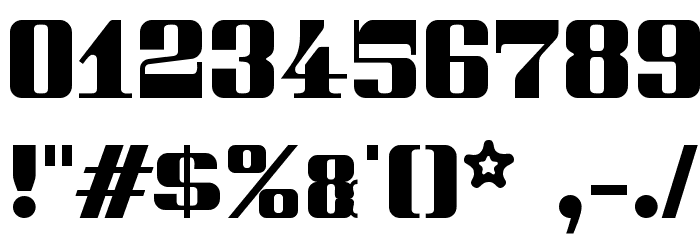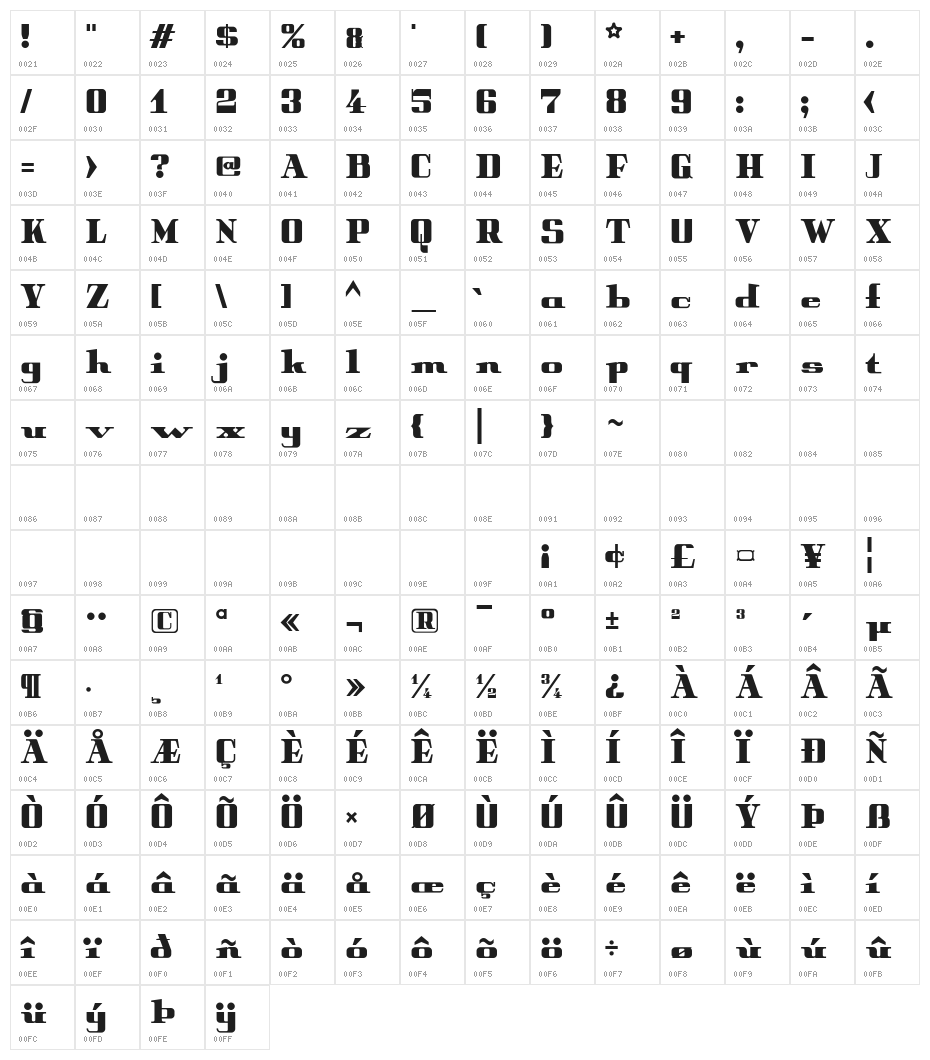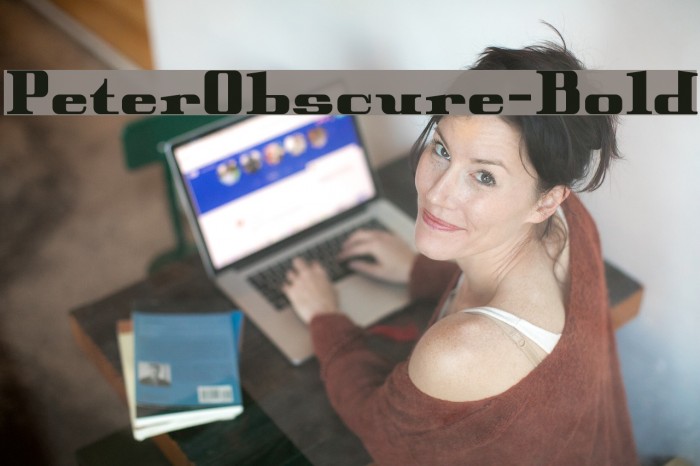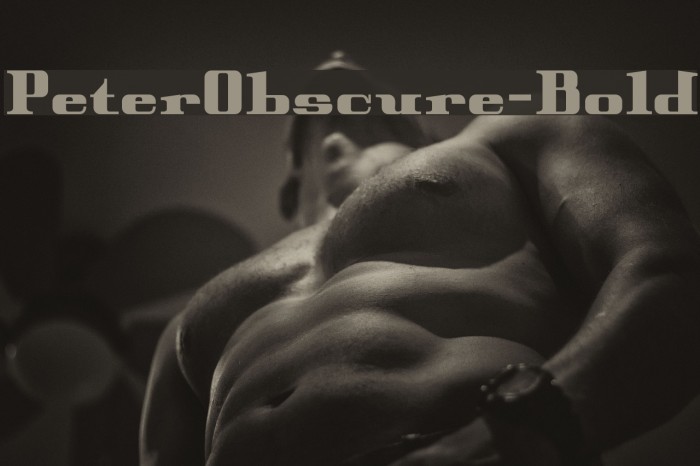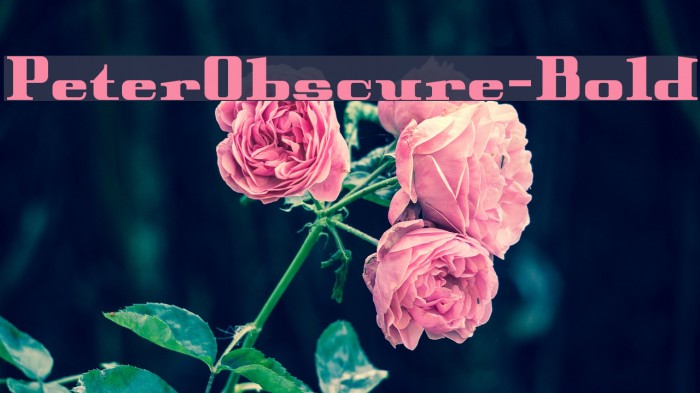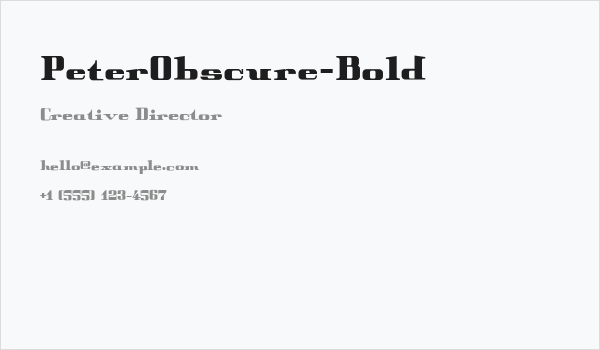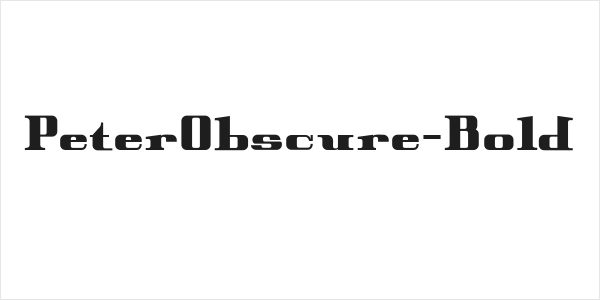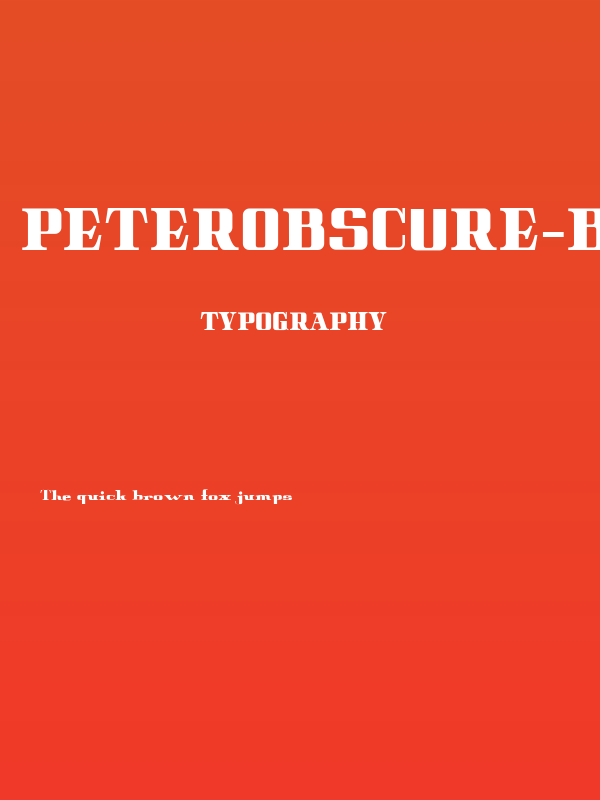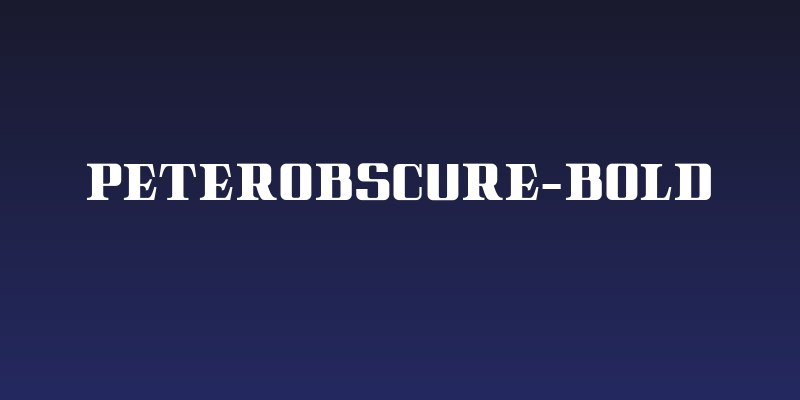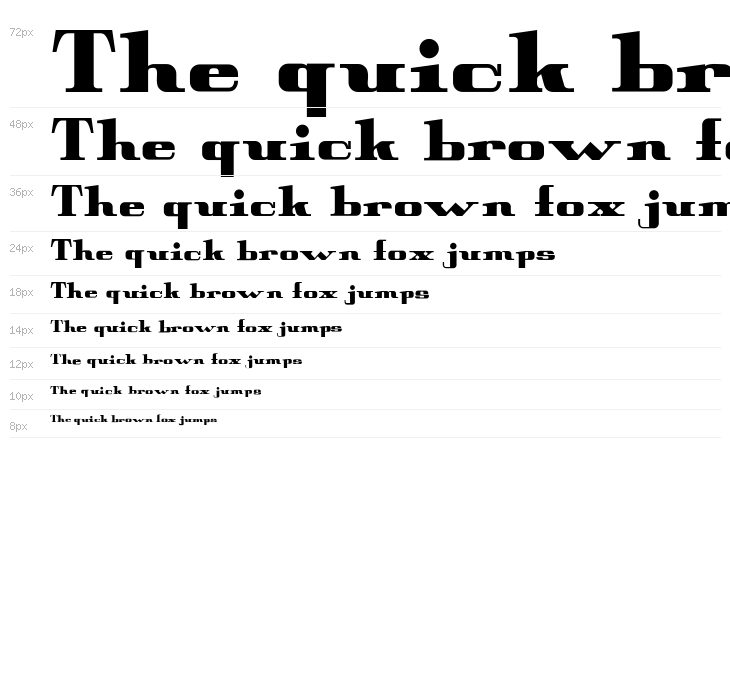
PeterObscure-Bold Font
PeterObscure-Bold Description
This font features a bold and striking design with a strong presence. The uppercase letters are characterized by sharp, angular serifs and a robust structure, giving them a commanding appearance. The lowercase letters maintain a similar boldness, with unique cuts and angles that add a touch of modernity. The numerals are equally bold, ensuring they stand out in any context. Special characters are designed with the same attention to detail, making them cohesive with the overall style. This font's high contrast between thick and thin strokes enhances its readability and visual impact.
| Proposed Projects | Ideal for branding, poster design, and headlines where a strong, impactful font is needed. |